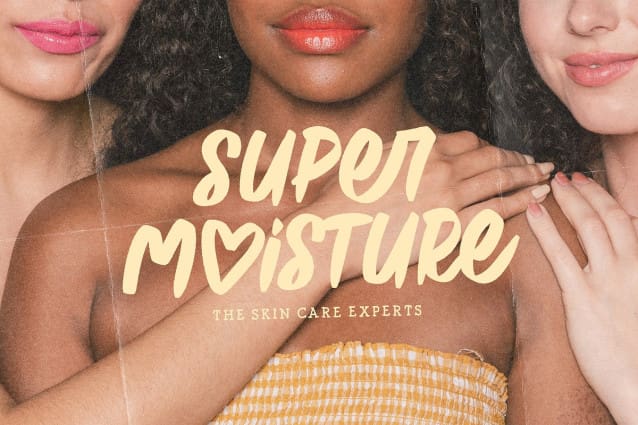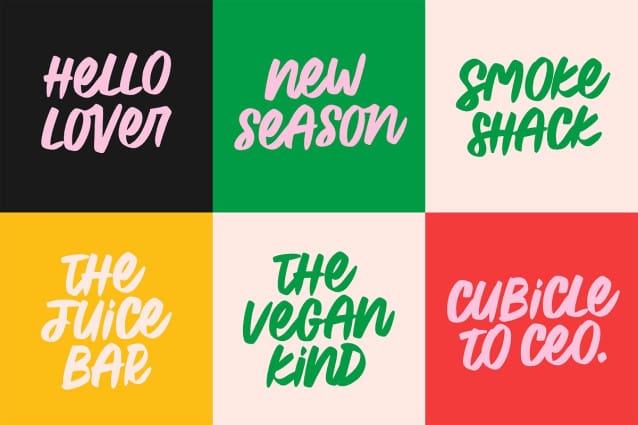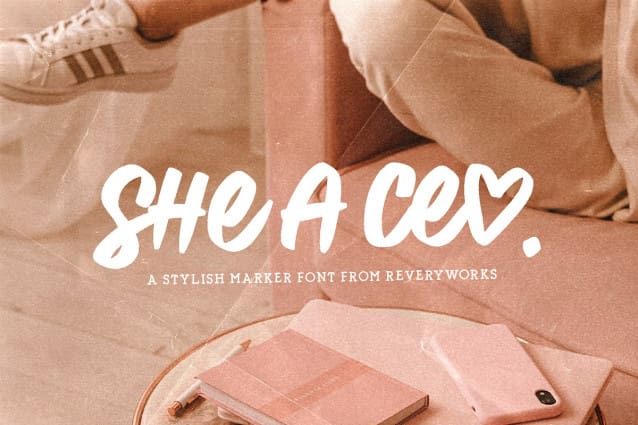
She A Ceo Font
She A Ceo Font a bold and catchy marker font packed with open type features for a free flowing marker! This one is for all my small business owners who are looking to make a statement! Its bold, catchy, dynamic and fearless! Also comes in a lighter version.
Multilingual Characters included: á â à ä å ã æ ç é ê è ë í î ì ï ı ñ ó ô ò ö õ ø œ š ß ú û ù ü ý ÿ ž À Ä Å Ã Æ Ç É Ê È Ë Í Î Ì Ï Ñ Ó Ô Ò Ö Õ ØŒ Š Û Ù Ü Ý Ÿ